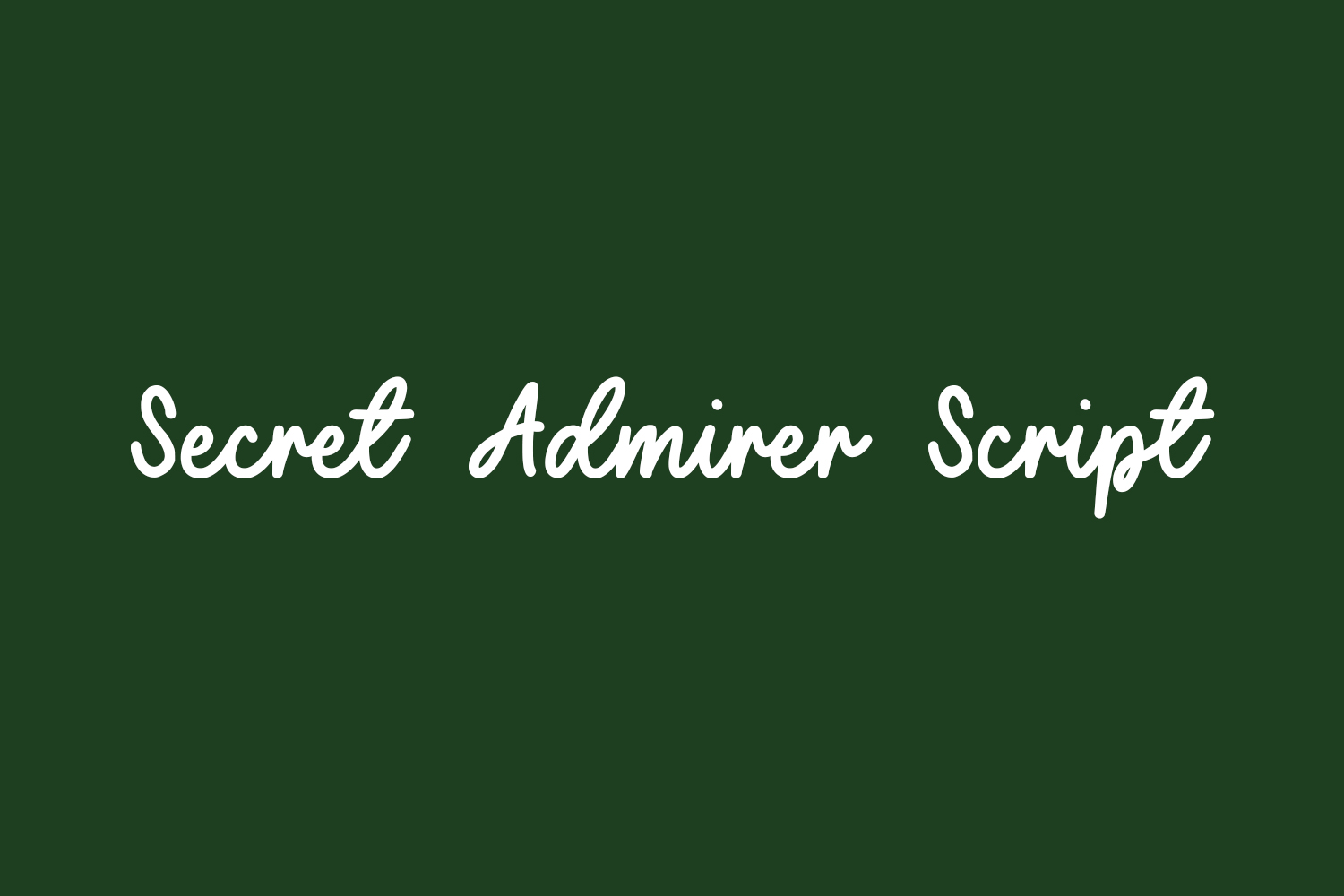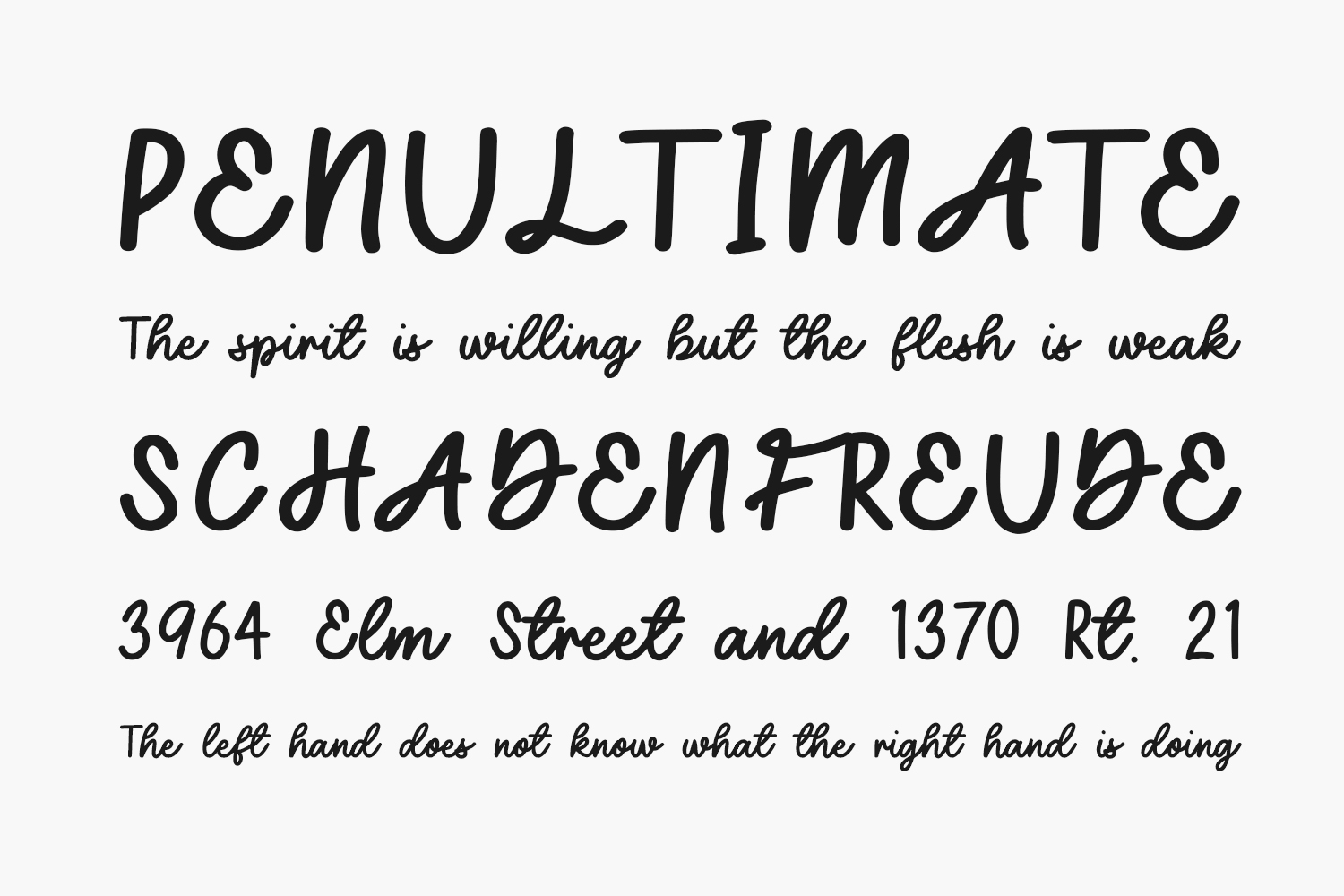
Secret Admirer Script Free Font is a lovely and cute duo styled handwritten font. Whether you’re looking for fonts for Instagram or calligraphy scripts for DIY projects, this font will turn any creative idea into a true piece of art. Secret Admirer Script Free Font was designed by Blue Studio09 and is free for personal use only. Please purchase the full version for commercial use.